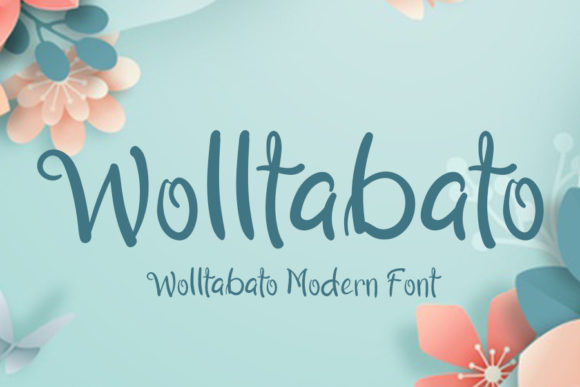
About Wolltabato Font
“Wolltabato” is a font of exquisite beauty, a masterpiece of handwritten design that is destined to become a cherished favorite. With its perfect blend of timeless calligraphic influences and a contemporary touch, this font stands as a testament to thoughtful craftsmanship. Prepare to be captivated by its allure and let it elevate your projects to new heights of creativity and sophistication.
The elegance of “Wolltabato” is a harmonious fusion of classic and modern elements. Its graceful lines and meticulous details pay homage to the art of calligraphy, while its contemporary twist breathes fresh life into its design. As you explore its intricacies, you’ll discover a font that has the power to transcend trends and stand the test of time.
Every letter of “Wolltabato” is a stroke of brilliance, and this font’s versatility ensures it shines in a myriad of contexts. From enhancing wedding invitations with a touch of refined charm to gracing logos and branding with a unique signature, it effortlessly adapts to your creative vision. Its distinctiveness becomes a reflection of your artistic identity, setting your projects apart from the ordinary.
Embark on a journey of creative exploration with “Wolltabato” as your companion. Fall in love with its delicate curves, precise lines, and impeccable balance. Allow it to be the catalyst that takes your projects to the zenith of design excellence, infusing them with a sense of elegance that resonates with your audience. Let “Wolltabato” inspire you to reach new levels of creativity, where sophistication meets innovation in perfect harmony.